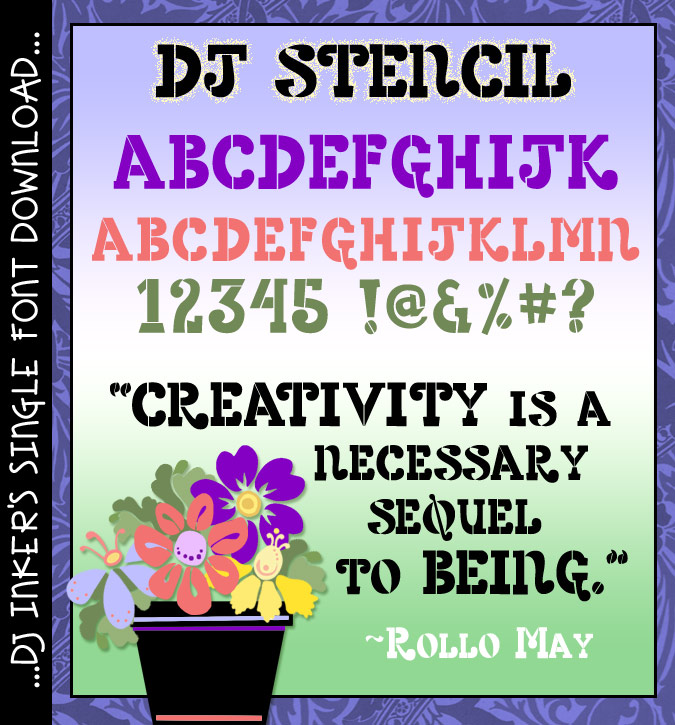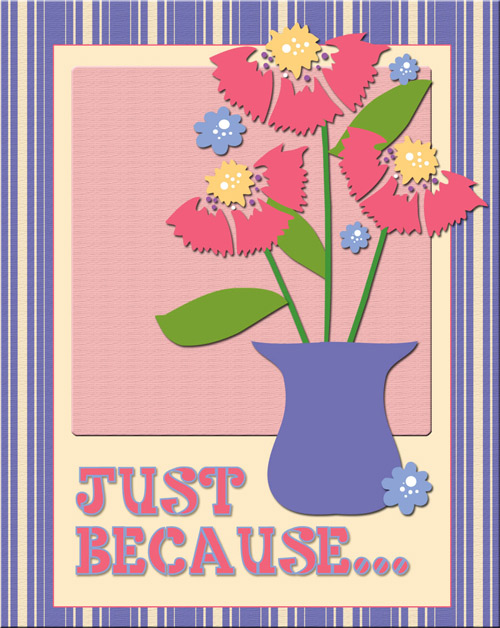
DJ Stencil Font Download
Use our clever 'DJ Stencil' font to type-up your posters, signs &
headlines. DJ's stencil lettering is bold & basic, but still stylin'
& smilin.' Looks great in dark or vibrant colors, in all-caps or try
typing over chalkboard or wooden backgrounds. (djdf108)